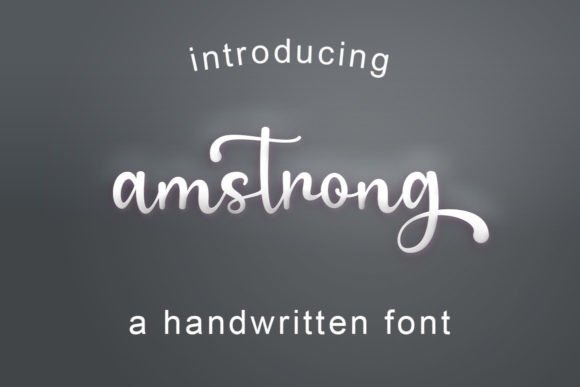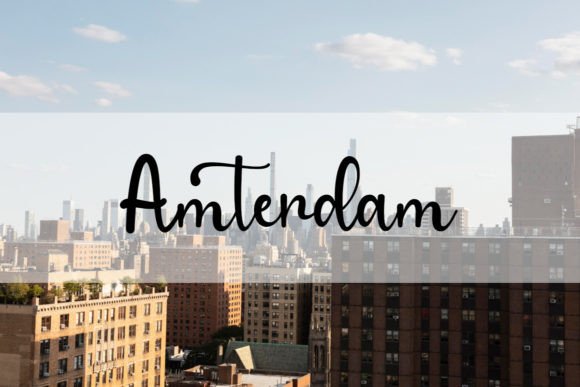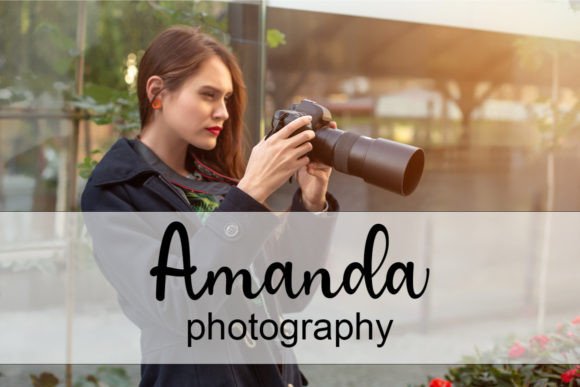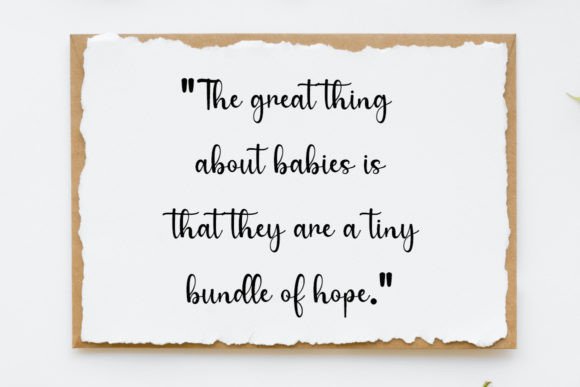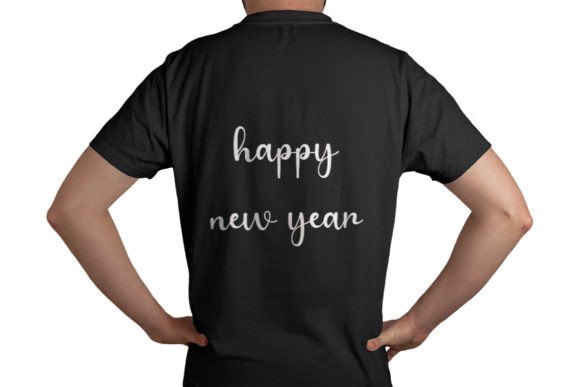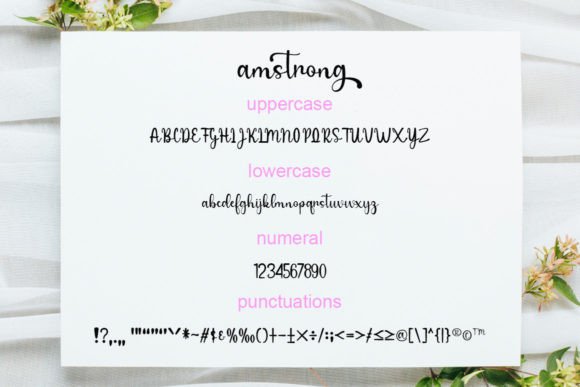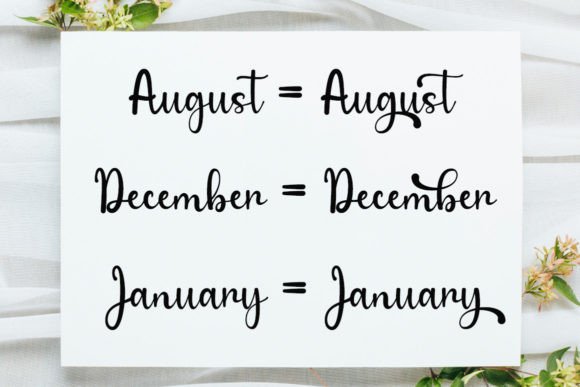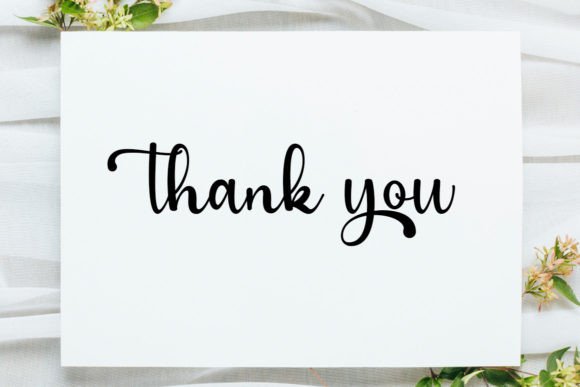
Amstrong Font
About Amstrong Font
Amstrong Font Download introduces a stylish and enchanting script typeface that adds elegance and character to every design. With flowing curves and beautifully crafted ligatures, Amstrong is ideal for creatives seeking a handwritten font that exudes charm and sophistication.
Whether you’re designing logos, business cards, branded tote bags, or website headers, this font makes your message feel elevated, expressive, and truly custom. Its unique form and refined flow make it a standout choice in both digital and print designs.
A Script Font with Personality and Presence
Amstrong combines artistic flair with professional polish. Each letter is thoughtfully designed to give your text an organic, hand-drawn quality that still feels upscale and stylish. Its versatility makes it perfect for:
• Brand logos and identity systems
• Apparel design and product packaging
• Website headers and hero sections
• Inspirational quote graphics
• Business cards and marketing materials
Whether you’re targeting a luxury audience or building a boutique brand, Amstrong helps communicate elegance and creativity.
Amstrong is also PUA encoded, which means all alternate characters, ligatures, and swashes can be accessed easily—even without advanced design software. This feature allows for a high degree of customization and styling freedom, helping you bring your exact creative vision to life.
Designed for Elegant and Expressive Projects
Amstrong’s enchanting flow makes it suitable for everything from social media visuals to printed stationery. Its slightly dramatic flair adds a sense of sophistication, while still feeling personal and inviting. Pair it with a simple serif or sans-serif font to create hierarchy and contrast, or let it shine on its own in signature logos or title headings.
Thanks to its consistent stroke weight and excellent spacing, the font maintains legibility even at smaller sizes, making it functional as well as beautiful.
From fashion branding to personalized merchandise, Amstrong elevates your typography and helps create lasting impressions.